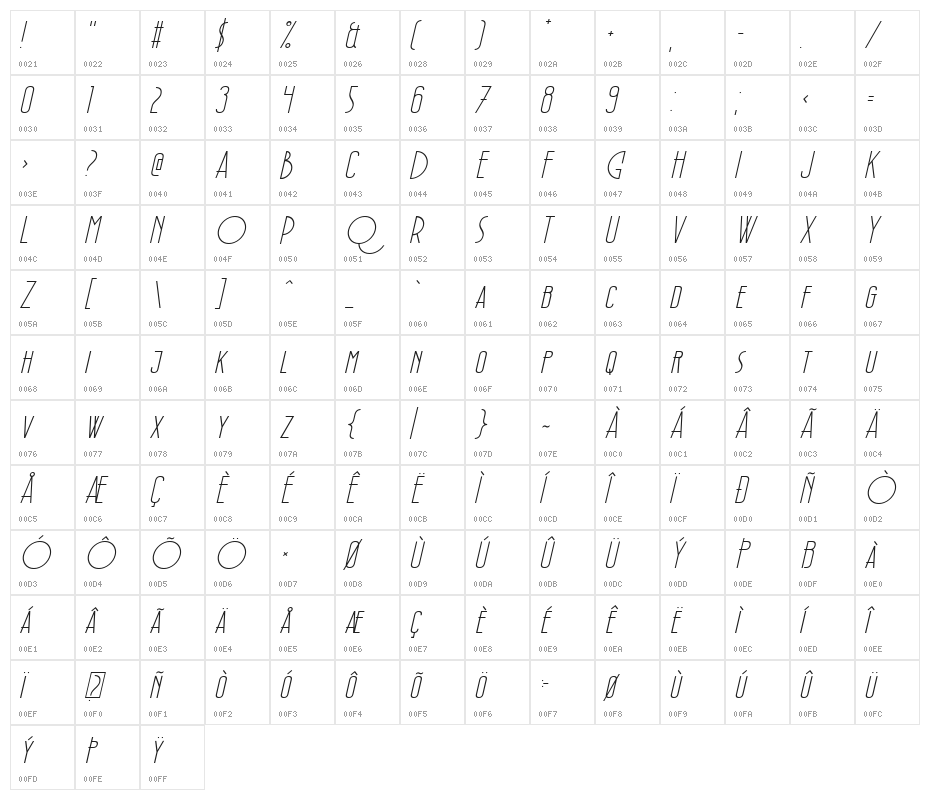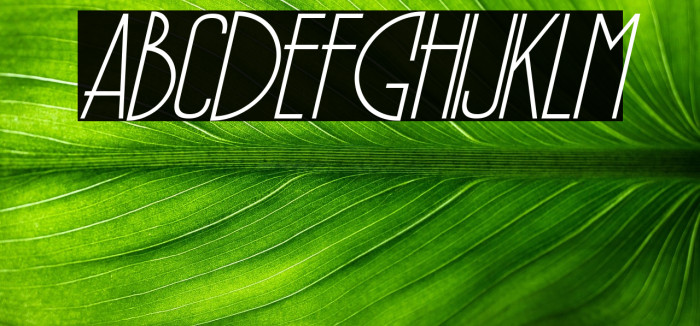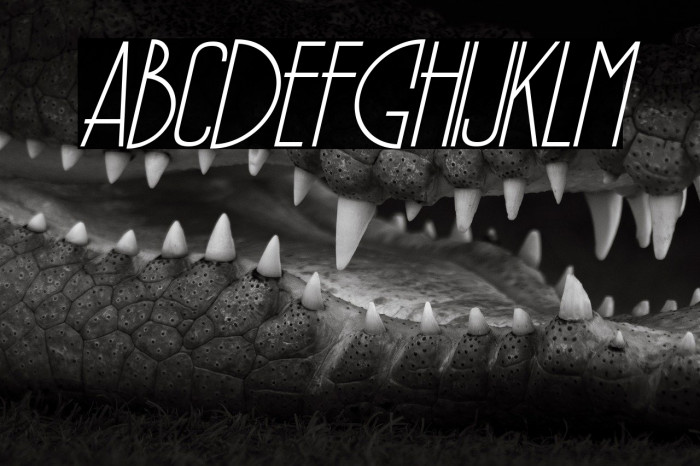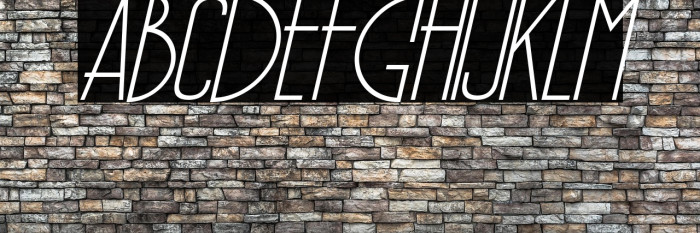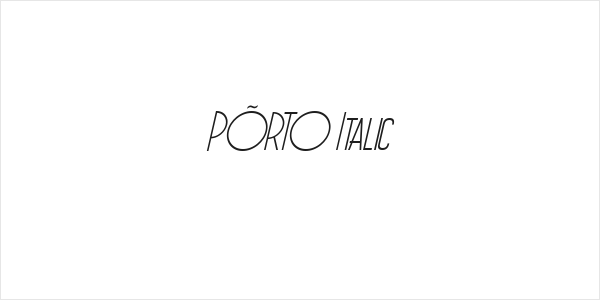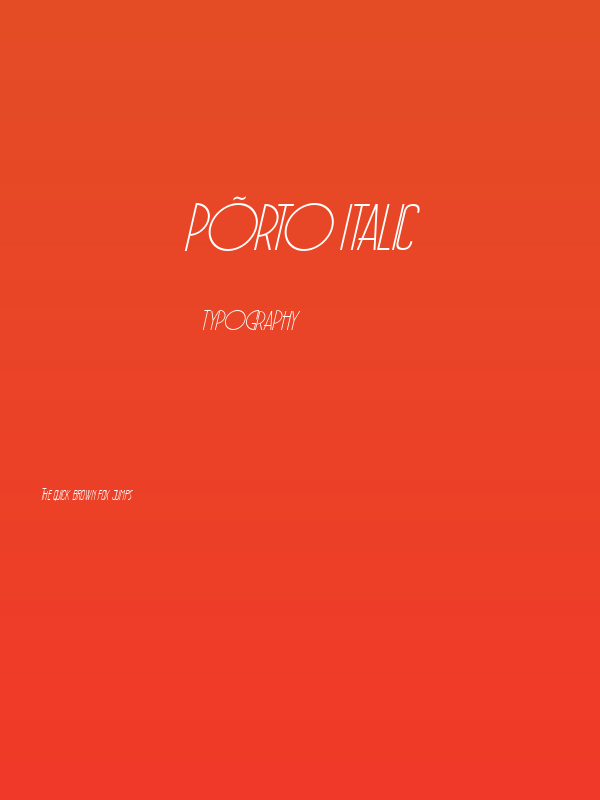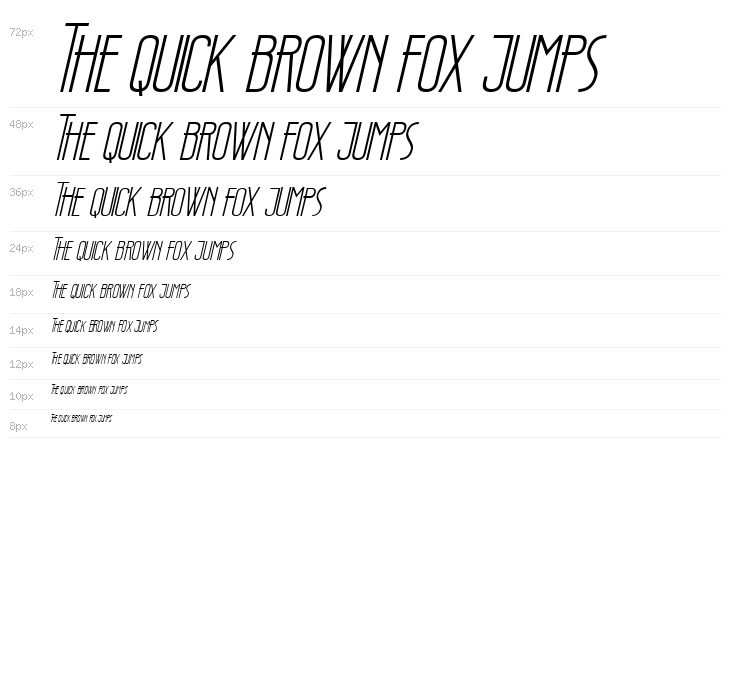
PÕRTO Italic Font
PÕRTO Italic Description
This font features a sleek, italicized design with elongated and narrow letterforms. The characters exhibit a consistent slant, giving a sense of motion and elegance. The strokes are thin and uniform, contributing to a modern and sophisticated appearance. The uppercase and lowercase letters maintain a cohesive style, with slightly exaggerated curves and angles that enhance readability while adding a touch of flair. The numerals and special characters follow the same stylistic cues, ensuring a harmonious overall look. This font is ideal for projects that require a contemporary and stylish touch.
Proposed ProjectsIdeal for fashion magazines, luxury branding, modern advertising, and elegant invitations.